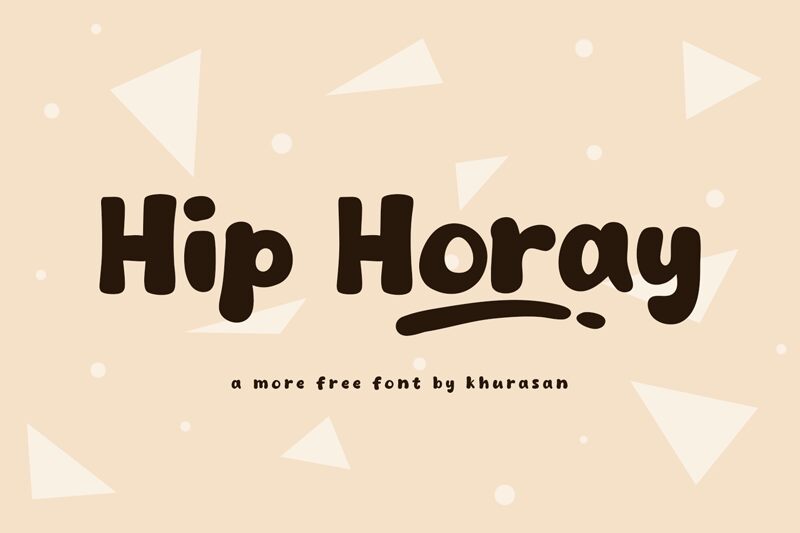
Hip Horay
Hip Horay, designed by Khurasan, is a modern and cute bold display font that brings a touch of playfulness to any design. With its cartoon style, it adds a fun and lively element to your projects.
Whether you need to create eye-catching posters, memorable logos, attractive magazine layouts, captivating book covers, or attention-grabbing banners, Hip Horay is the perfect choice. Its bold weight ensures that your text stands out and commands attention.